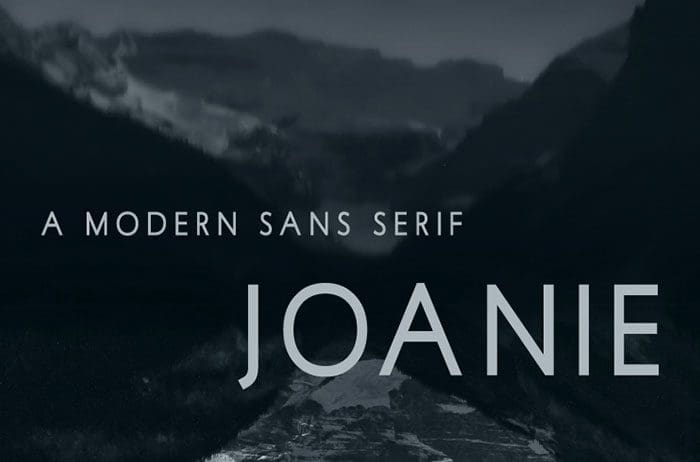
Joanie Sans Serif Font
Joanie is a fancy, contemporary sans serif font. With its neat and beautiful arrangement of letters, this typeface will look outstanding in both formal and non-formal designs. Thanks to Mas Anis for sharing this font! Take a look at this portfolio for more of his stunning fonts.